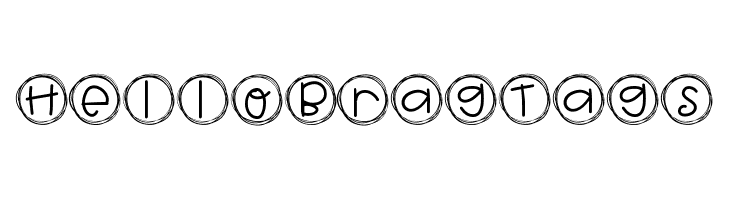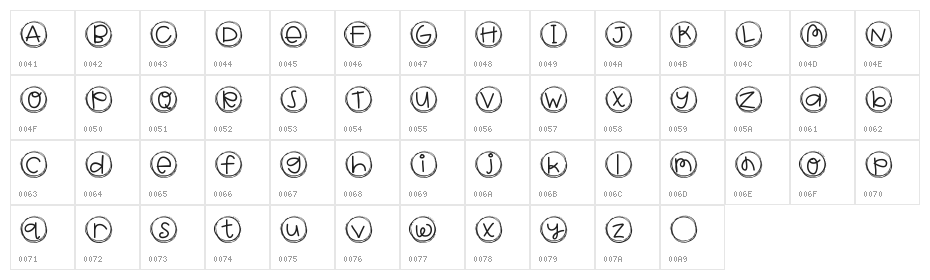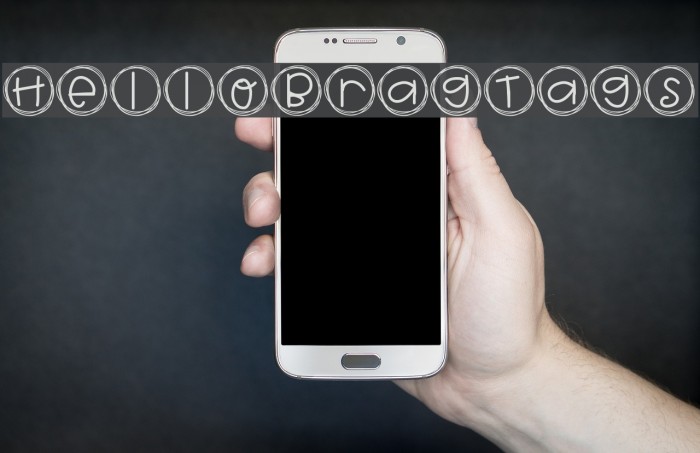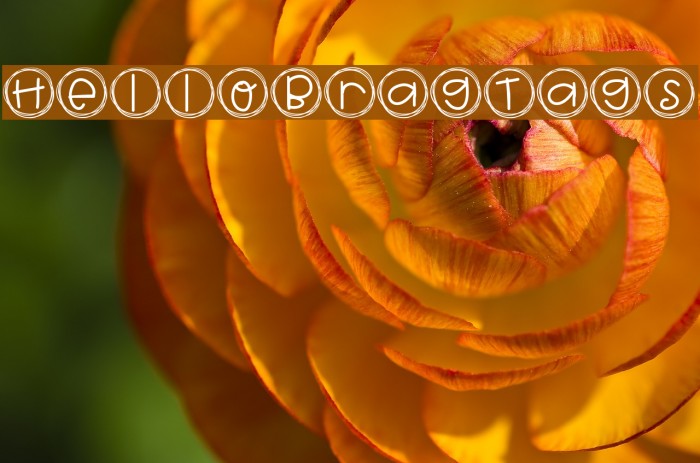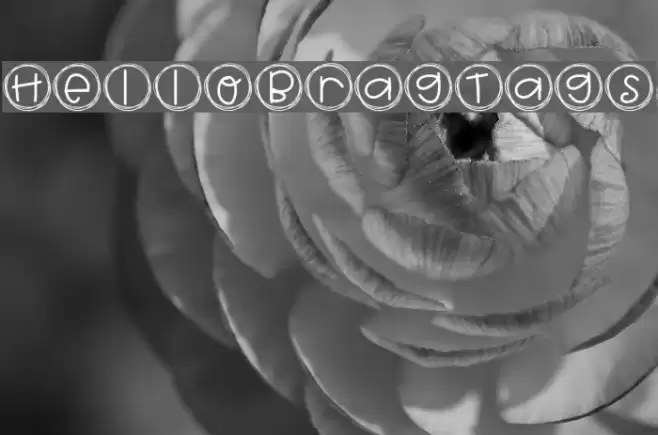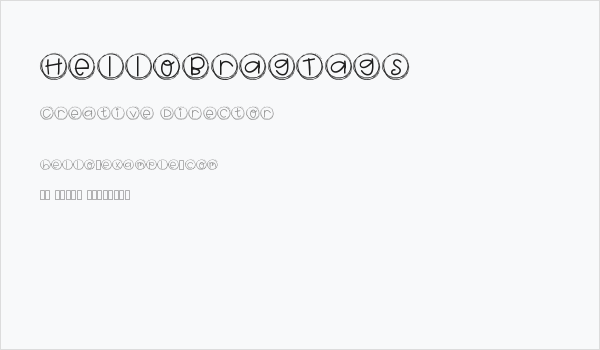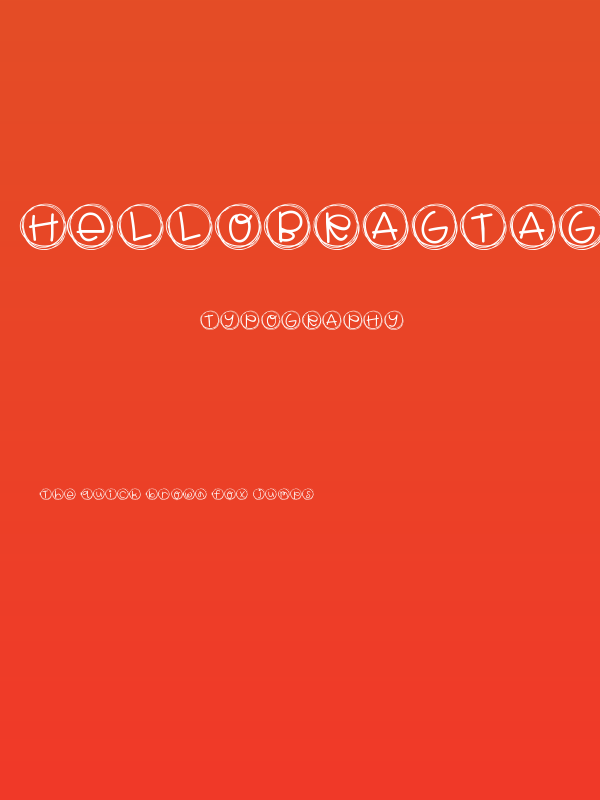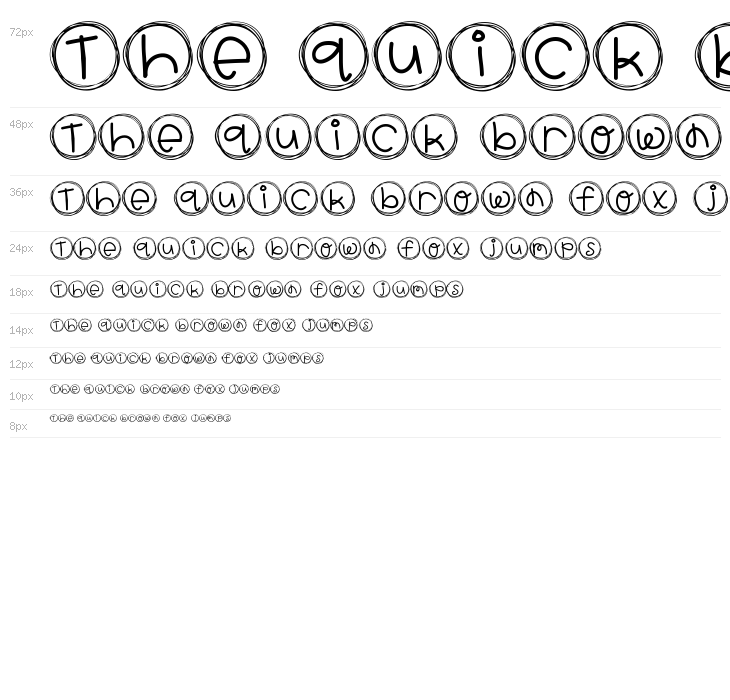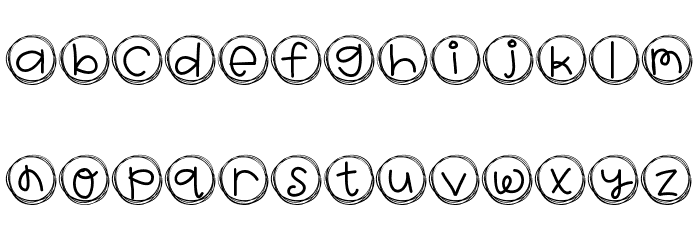
HelloBragTags Font
HelloBragTags Description
This playful and decorative font features letters enclosed within circular borders, creating a unique and eye-catching style. Each character is designed with a hand-drawn aesthetic, giving it a whimsical and informal appearance. The uppercase and lowercase letters maintain a consistent circular theme, while the numbers and special characters follow suit, ensuring uniformity across the entire set. The font's distinctiveness lies in its bold, outlined circles that encapsulate each letter, making it ideal for projects that require a fun and engaging visual element.
Overall StyleWhimsical, Playful
Proposed ProjectsIdeal for children's book covers, playful invitations, educational materials, and creative branding projects.